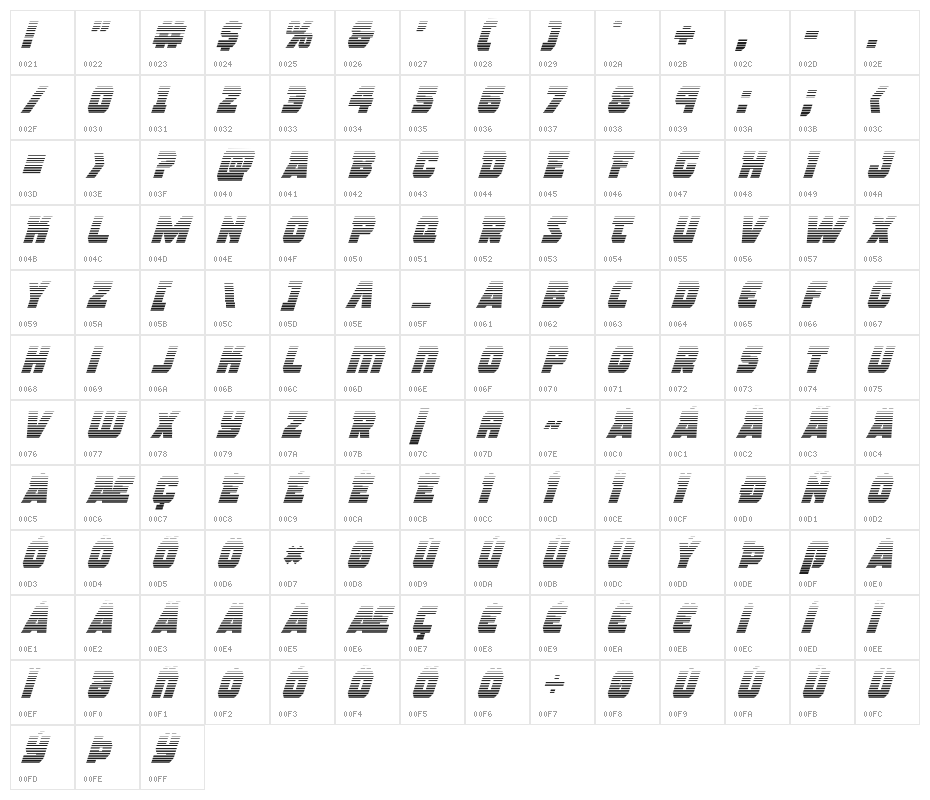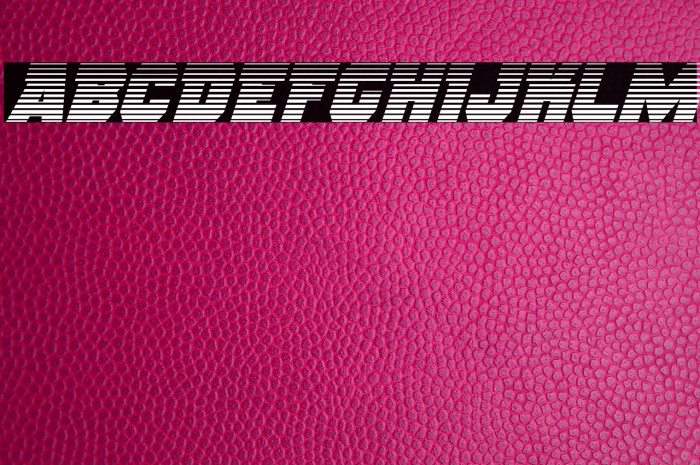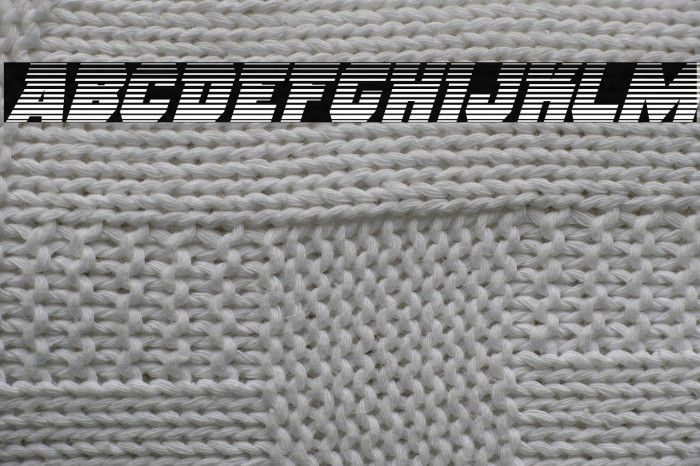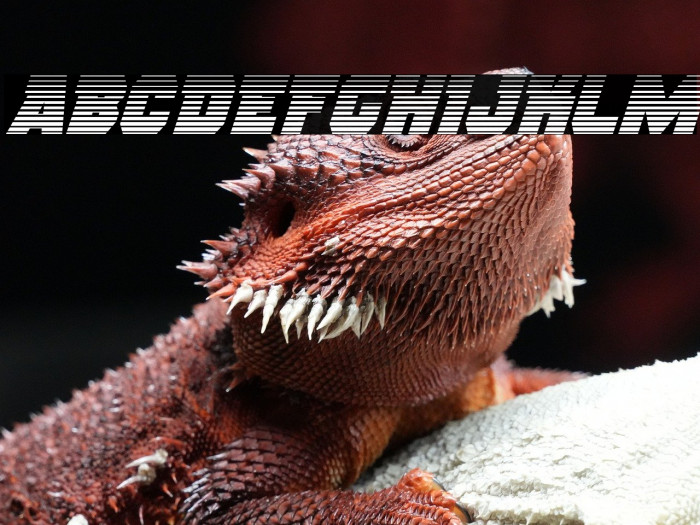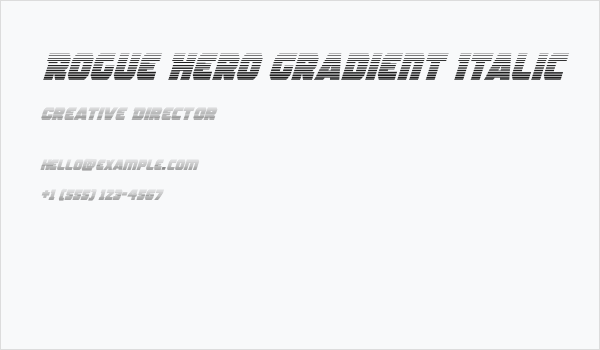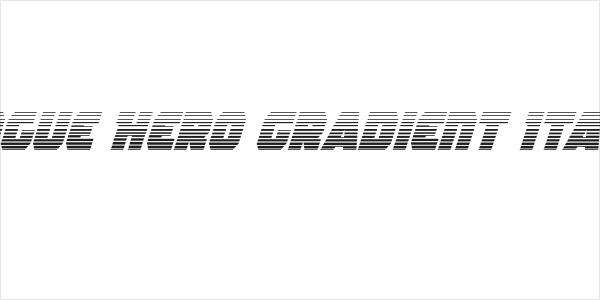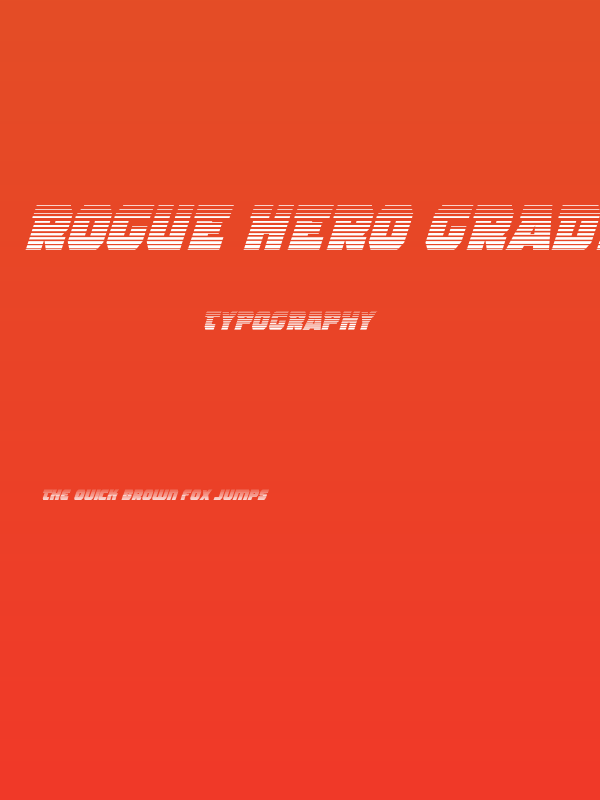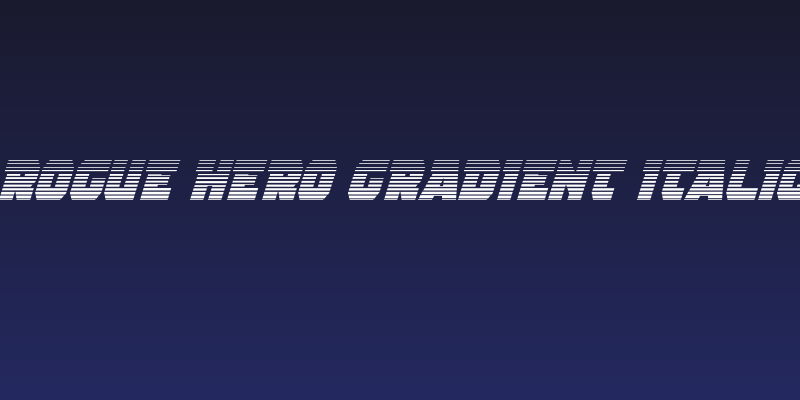
Rogue Hero Gradient Italic Font
Rogue Hero Gradient Italic Description
This font features a bold, italicized style with a distinctive gradient effect that creates a sense of motion and energy. The uppercase and lowercase letters, as well as numbers and special characters, are designed with horizontal lines that give a dynamic, futuristic appearance. The slanted orientation enhances the sense of speed and modernity, making it ideal for projects that require a strong visual impact. The font's unique design is well-suited for creative and attention-grabbing applications.
| Proposed Projects | Ideal for sports branding, video game titles, futuristic posters, and dynamic logo designs. |